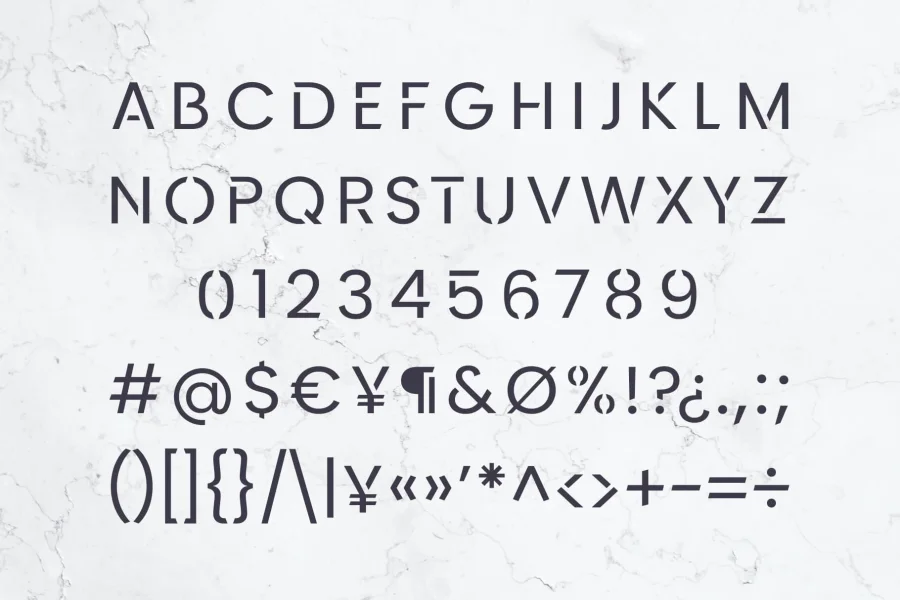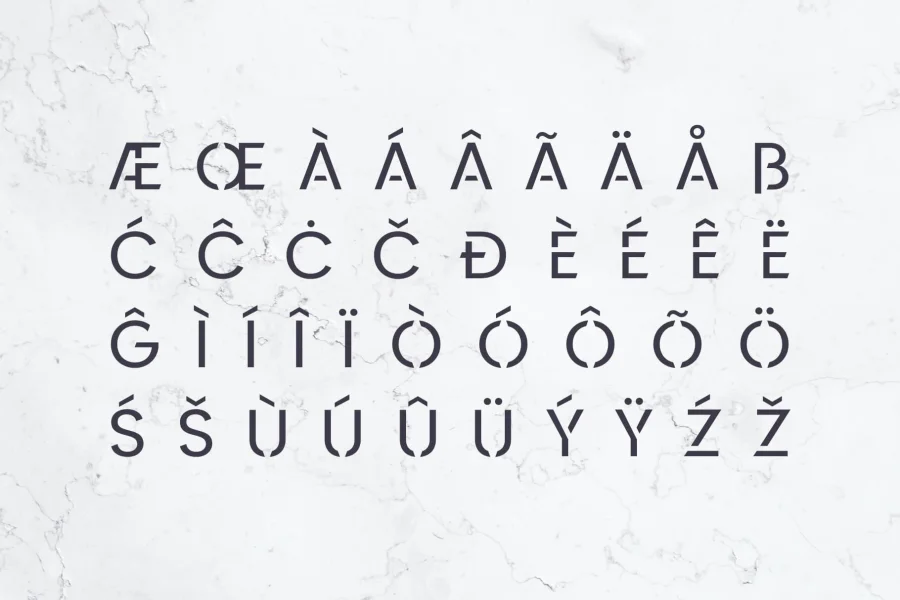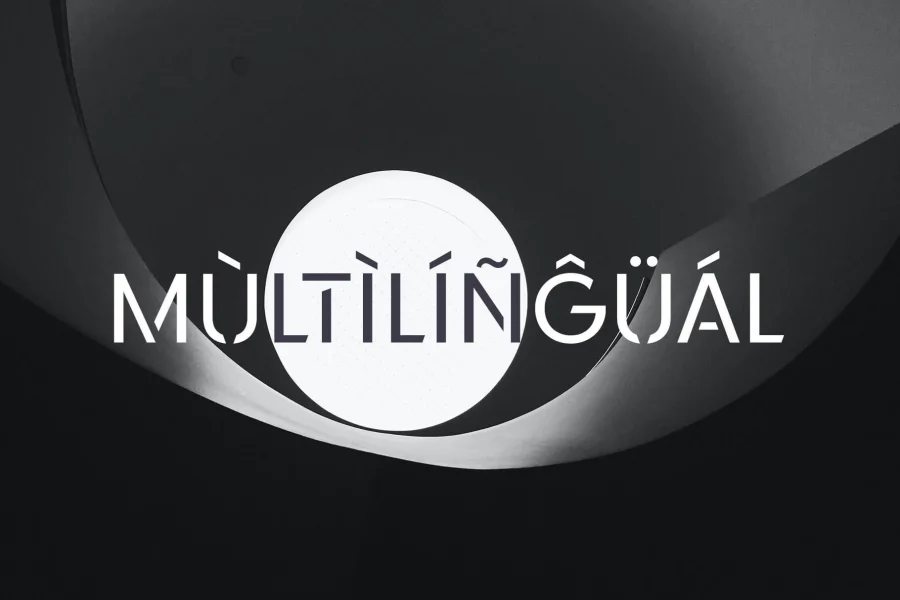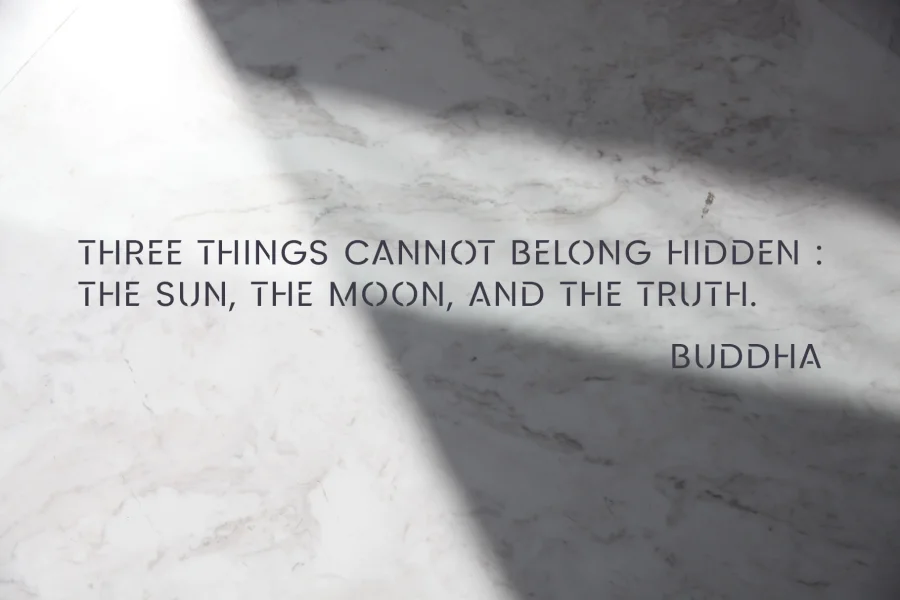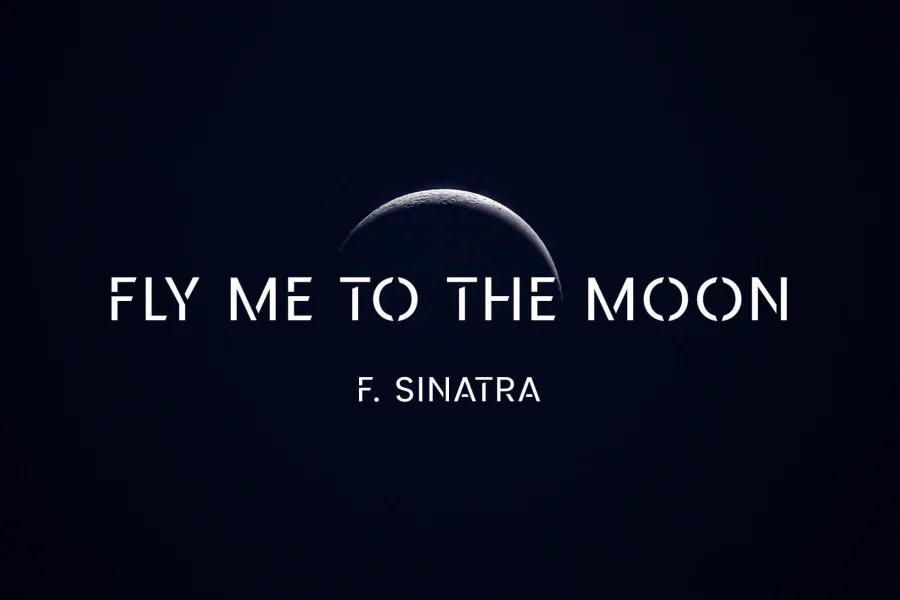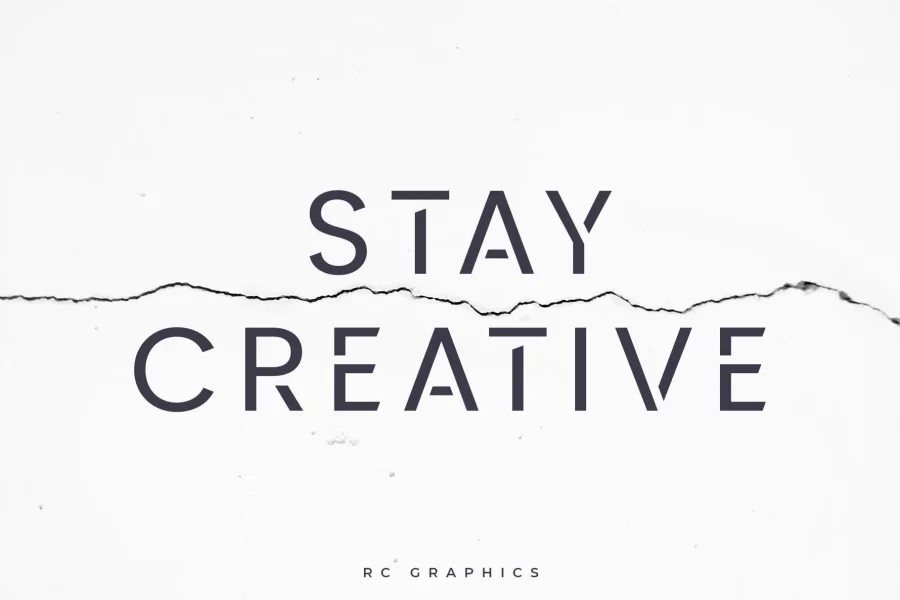
Introducing Kerox - Sans Serif Font
Kerox is a strong and clean sans serif font. It's a versatile font family designed for strong, classic branding. Kerox works great in any branding, logos, magazines, videos, product packaging, website headers, clothing designs and much more.